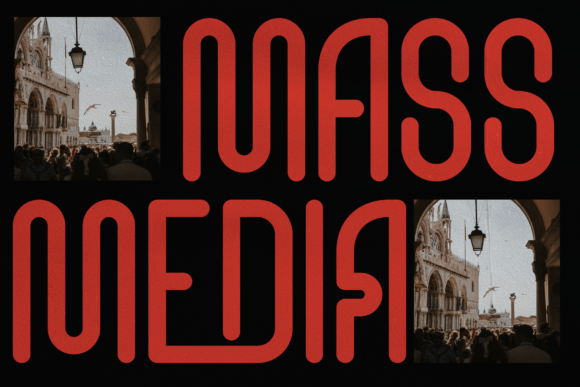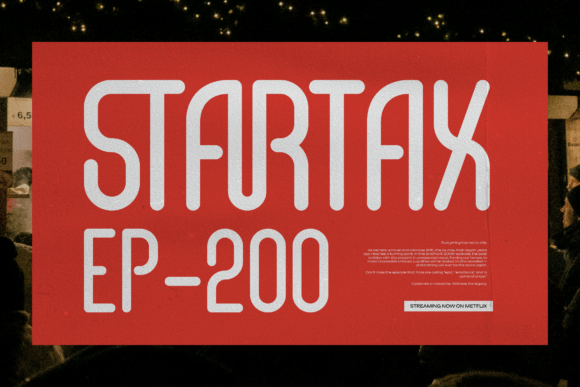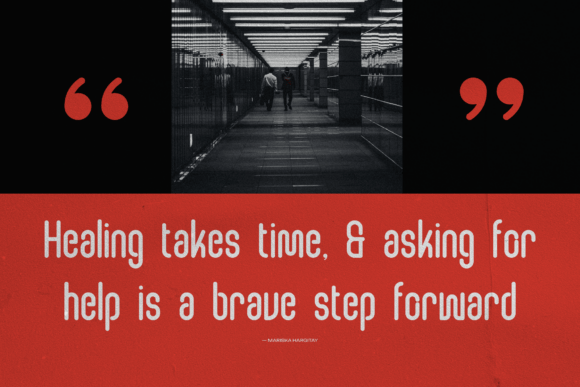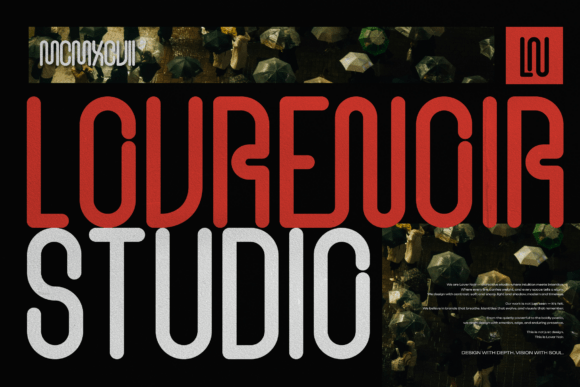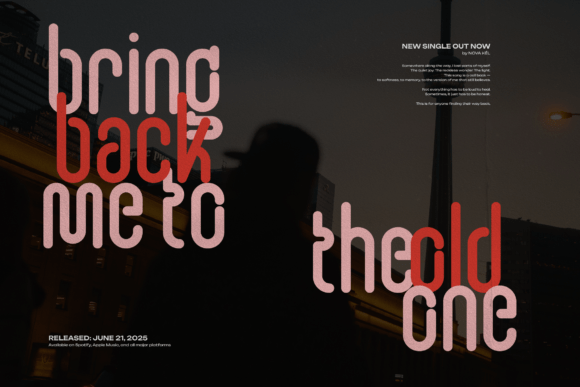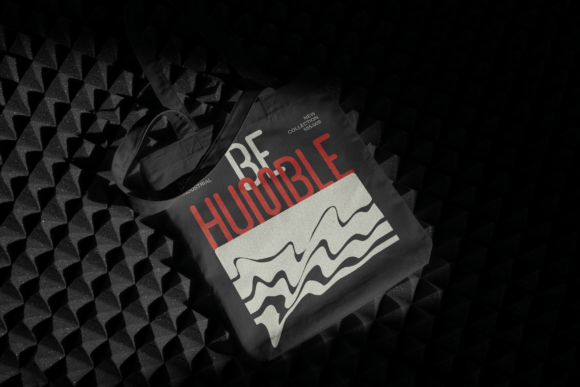
Unlocking the Power of Typography: The Arcerox Font
As designers, we’ve all been there – staring at a blank canvas, trying to convey a message that will capture the audience’s attention. The right font can make all the difference. Imagine a font that stands out from the crowd, one that exudes modernity and sophistication. For those moments when you need to make a statement, the Arcerox Font is here to help.
Arcerox Font is a bold and futuristic geometric sans font, designed to cut through the noise and leave a lasting impression. With its tall, rounded forms and sleek ligatures, it’s perfect for headlines, branding, posters, or editorial layouts. Whether you’re working on a commercial project or a creative endeavor, Arcerox Font offers the flexibility and style you need to succeed.
Arcerox Font Key Features
- Font Family: Arcerox Font is a sans-serif font family designed for digital use. It includes regular, italic, bold, and bold italic styles.
- Unique Characteristics: Arcerox Font features a clean, modern design with a focus on readability, making it ideal for digital interfaces, publications, and presentations.
- Language Support: The font includes support for multiple languages, including English, Spanish, French, German, Italian, and many others.
- Scalability: Arcerox Font is designed to be highly scalable, ensuring that it remains legible and clear at various sizes and resolutions.
Arcerox Font Review
As a designer, I was excited to dive into the Arcerox font, and overall, I found it to be a solid addition to my font library. ✨ One of the things that works well is its versatility. It comes in multiple weights, from light to bold, making it perfect for various design projects. The font’s modern and sleek aesthetic also makes it a great choice for contemporary designs.
- ✨ Versatile: Suitable for various design projects and comes in multiple weights.
- ✨ Modern aesthetic: Perfect for contemporary designs.
- ✨ Highly legible: Easy to read in both digital and print formats.
However, there are a few limitations to consider. ⚠️ For one, the font may not be the best choice for body text due to its relatively small x-height. Additionally, the font’s bold weight can feel a bit heavy-handed at times.
- ⚠️ Limited x-height: May not be suitable for body text.
- ⚠️ Heavy-handed bold weight: May not be ideal for all design applications.
Overall, I would recommend the Arcerox font for designers looking for a modern, sleek font with a wide range of weights. While it may not be perfect for every project, its versatility and legibility make it a solid addition to any font library.
The Arcerox Font is versatile and can be used for a variety of projects, including:
• Branding and identity design
• Digital signage and wayfinding
• Print materials and packaging
Getting the Most Out of Arcerox Font
For the best results, use the Arcerox Font in conjunction with a clean and modern design aesthetic. Experiment with different font sizes and combinations to create visual interest. Also, consider using the font in conjunction with other design elements, such as graphics and images, to create a cohesive and engaging visual identity.